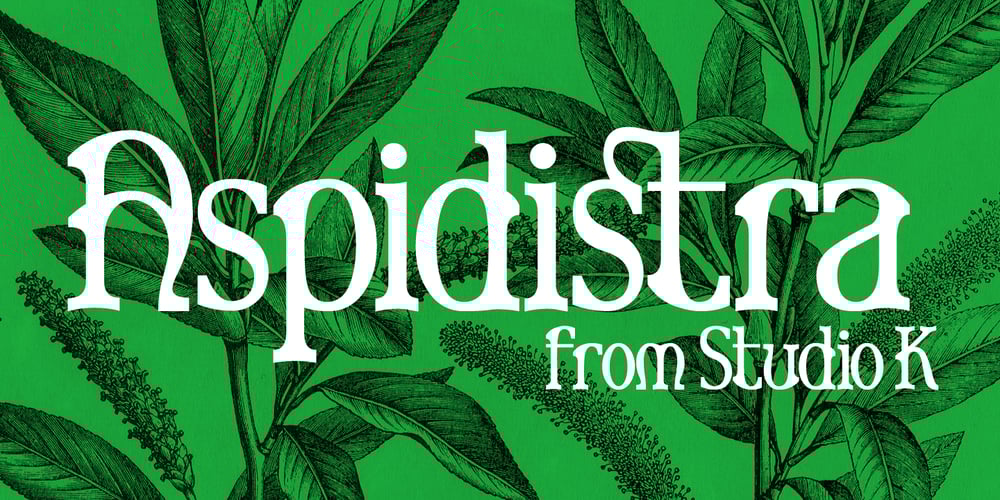
Aspidistra Font Family was designed by Keith Tricker and published by Studio K. Aspidistra contains 2 styles and family package options. Aspidistra is a modern vintage typeface; which is to say a Studio K original with a period feel: it has a strong Art Nouveau influence (a distant cousin of Arnold Bocklin). Why Aspidistra? In the first half of the last century an Aspidistra was a must have accessory of the aspiring middle classes (see George Orwell’s Keep the Aspidistra Flying), and to my mind this font evokes the chintzy charm of that era.